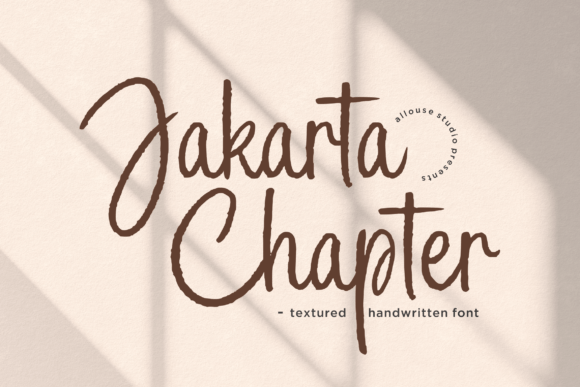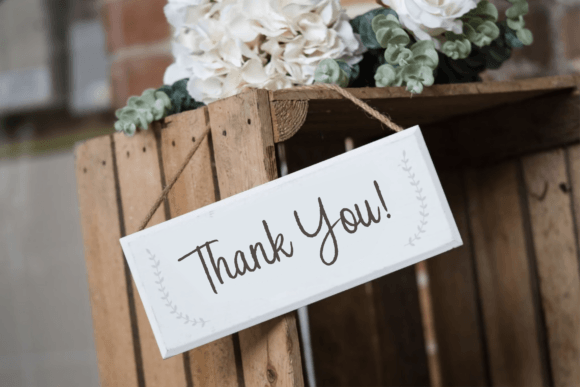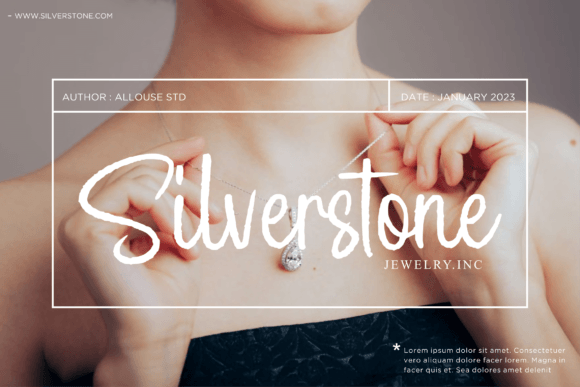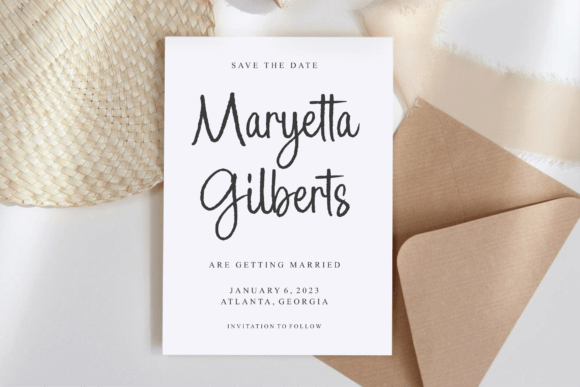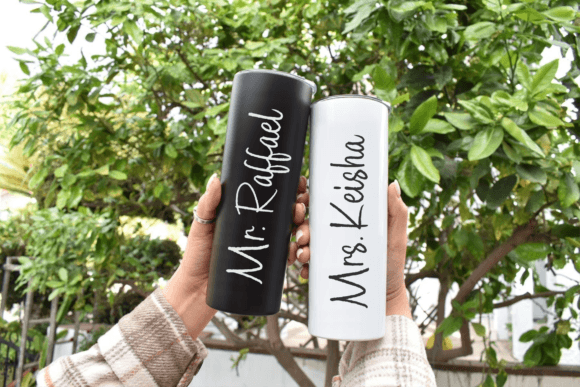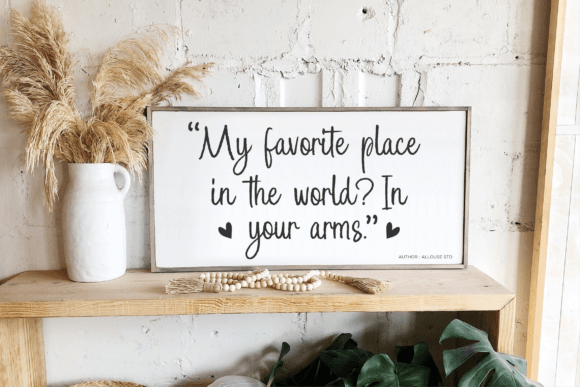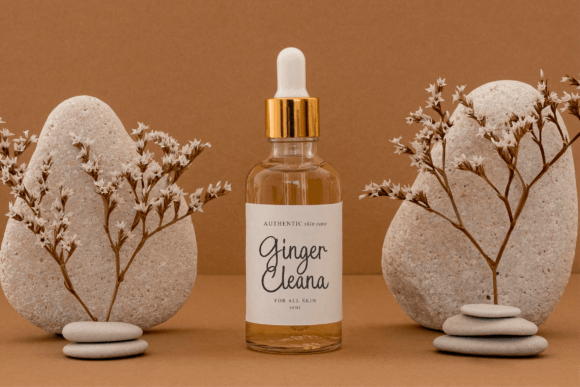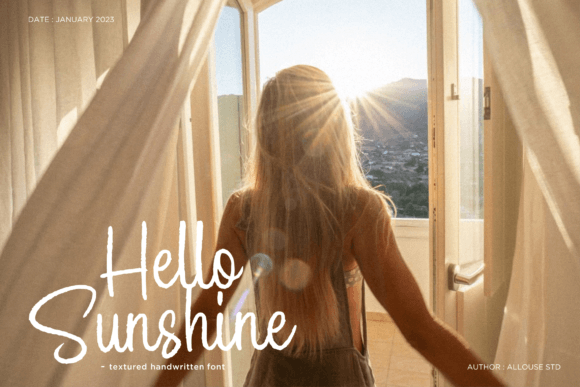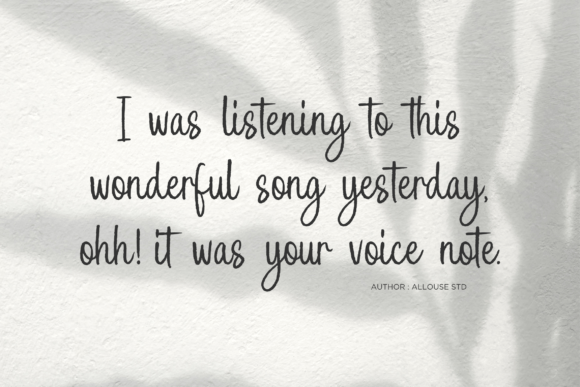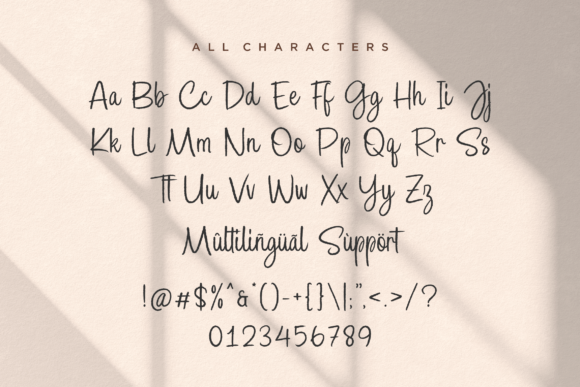
Jakarta Chapter Font
A Trendy and Textured Script Typeface
Jakarta Chapter is a modern textured script font designed to make your projects stand out. With its unique hand-drawn texture and stylish curves, this font adds a fresh, contemporary vibe to any design.
Whether you’re working on digital or print materials, Jakarta Chapter brings a creative flair that feels bold and sophisticated.
Perfect for Logos and Branding
This font is an excellent choice for logos and brand identities. The textured details give your logo an authentic, handcrafted feel while maintaining a polished look.
Jakarta Chapter works beautifully for boutique brands, creative studios, and modern businesses that want to look both professional and approachable. Use it on business cards, packaging, and promotional materials to create a cohesive, stylish brand presence.
Pair it with minimalist icons or clean sans-serif fonts for a balanced and refined design.
Ideal for Social Media and Digital Content
Jakarta Chapter is perfect for social media graphics, website headers, and email campaigns. Its textured appearance adds depth and personality, helping your content capture attention in busy feeds.
Use it for quotes, announcements, or sales promotions to create engaging visuals. The font’s clean lines ensure readability on screens of all sizes.
Its modern style blends well with a variety of color palettes, from soft neutrals to bold contrasts.
Great for Invitations and Print Projects
This font also shines in print. Use Jakarta Chapter for wedding invitations, event posters, and stationery. Its textured script creates an upscale feel without being overly formal.
Pair it with simple illustrations or delicate borders to enhance the elegant, contemporary look. Whether you’re designing for personal events or professional occasions, Jakarta Chapter helps your text feel special.
Jakarta Chapter includes a full set of uppercase and lowercase letters, numbers, punctuation, and ligatures. You can easily adjust the spacing or combine characters to create unique wordmarks and headlines.
To get the most from the font, leave plenty of white space around your text. This helps highlight the textured details and keeps your design clean and modern.
Use larger sizes for titles and smaller sizes for accents or supporting text.
Tips for Modern Designs
Pair Jakarta Chapter with clean sans-serif fonts for a balanced aesthetic. Use soft color palettes like pale gray, cream, or blush for a minimal look, or go bold with darker backgrounds and vibrant accents.
Keep your layouts simple and organized so the textured script remains the focal point. Add subtle icons or line elements to create a cohesive visual story.
This font works best when you let it breathe and avoid overcrowding your composition.
A Must-Have for Your Font Collection
Jakarta Chapter isn’t just another script font—it’s a versatile design tool that brings style and depth to any project. From logos and branding to social media and print, this font adapts effortlessly and adds a premium finish to your work.
Adding Jakarta Chapter to your font library means you’ll always have a trendy, textured option ready to make your ideas shine. Whether you’re designing for clients, your own brand, or personal projects, this font helps you create memorable, eye-catching results.